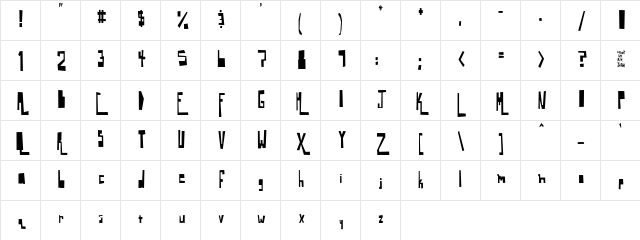
Sassmouth Skinny Regular
Design Context for Sassmouth Skinny Typeface
Sassmouth Skinny is a composed and adaptable typeface that performs quietly and consistently across a wide range of design contexts.